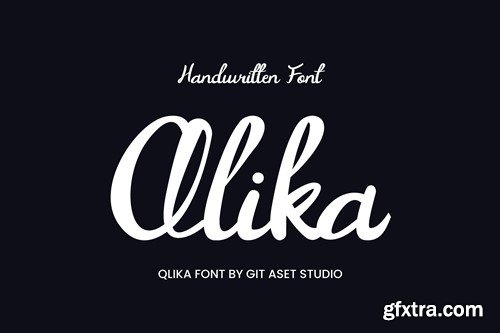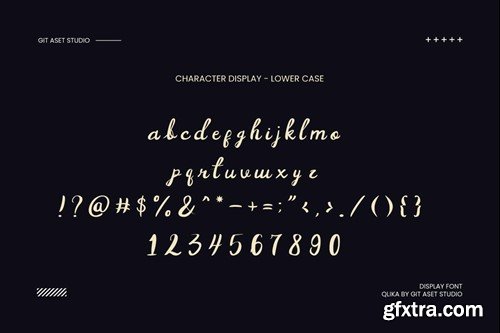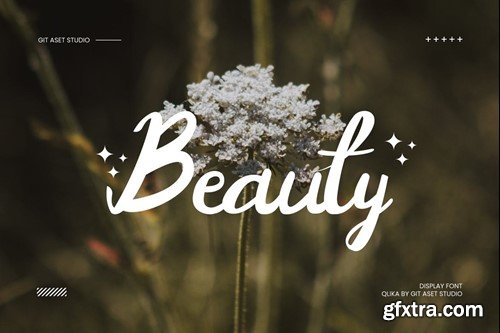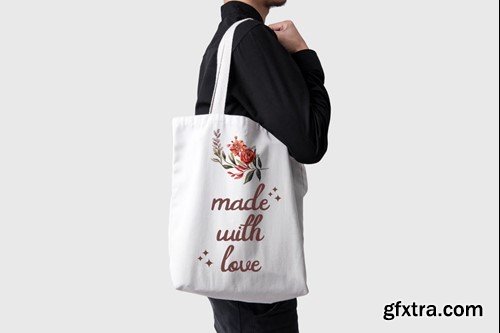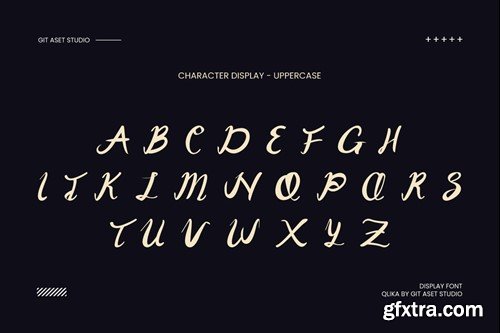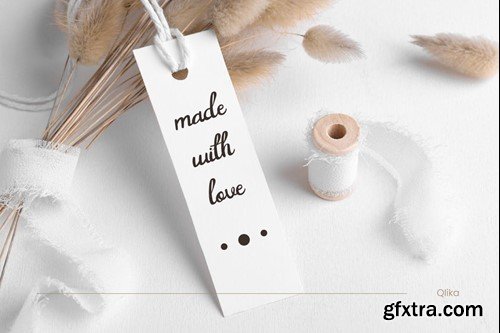
QLika Script 字体 VY45M92
Qlika Script Font
Qlika Script Font is a stylish and elegant typeface that will undoubtedly add a touch of sophistication to any project. This font has been carefully crafted to bring a sense of beauty and grace to your designs, making it the perfect choice for any creative endeavor. Whether you're designing wedding invitations, creating eye-catching logos, or crafting exquisite packaging, Script Font is the ideal choice. Its classic yet contemporary appeal makes it perfect for a variety of projects, from branding to editorial design. what includes on ZIP font format ( OTF and TTF) image on preview is just preview (not include on the font ZIP)